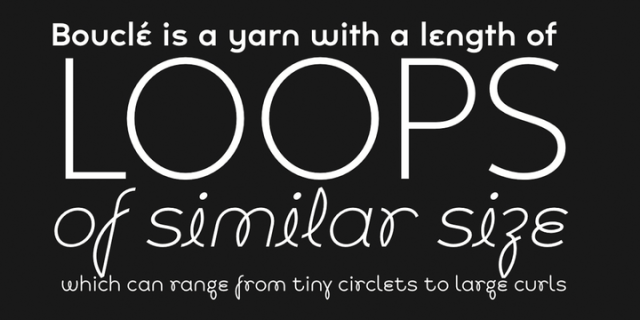
Boucle 2 Font is perfect for high-end fashion boutique branding, luxury textile packaging, upscale interior design studios, sophisticated yarn shop signage, elegant craft workshop logos, premium knitting supply labels, refined fabric store materials, and textured lifestyle brand graphics.
This font is exciting because it captures the luxurious texture and sophisticated craftsmanship of fine woven fabrics with curved letterforms that embody the tactile elegance and artisanal quality of premium textiles. Boucle 2 Font brings textile sophistication to designs through its woven structure and fabric-inspired styling that feels like typography crafted from the finest threads and blessed with couture-level attention to detail. The font's textured character makes it perfect for luxury brands and want to communicate quality, craftsmanship, and the kind of sophisticated texture that appeals to discerning customers who appreciate fine materials.
The Boucle 2 Font family includes Regular, Bold, Light, Textured, Woven, and Luxury variants, each designed to capture different aspects of textile elegance while maintaining the font's characteristic sophisticated appeal and fabric-inspired authenticity. The character set features woven details that enhance the font's connection to fine textiles and artisanal craftsmanship.
Whether you're creating branding for luxury fashion businesses, designing materials for textile arts, or developing content that needs to project sophisticated texture, Boucle 2 Font Free Download delivers the refined typography that appeals to audiences who appreciate the finest things in life. This remarkable typeface transforms text into expressions of tactile luxury that resonate with the same sophisticated craftsmanship and premium quality found in the world's most exclusive textile ateliers, ensuring your message communicates the exquisite attention to detail and artisanal excellence that defines brands committed to creating beautiful, luxurious experiences through superior materials and masterful craftsmanship.